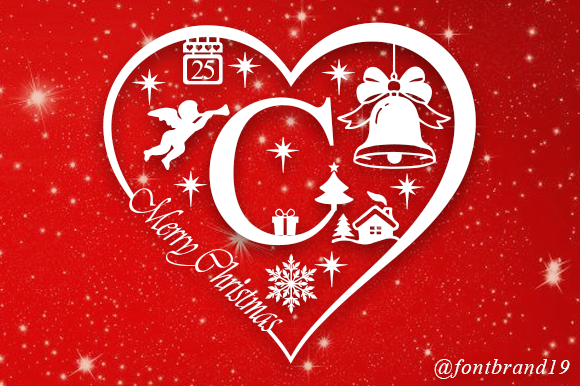
Love Christmas Monogram Font is the perfect choice for adding a touch of festive magic to your designs. This decorative font is meticulously crafted with intricate details that will captivate and delight your audience.
With its PUA encoding, accessing all the unique glyphs and swashes is a breeze. Let your creativity soar as you explore the endless possibilities this font offers.
Whether you're designing Facebook covers, holiday cards, or creating personalized gifts, Love Christmas Monogram Font will be your go-to choice. It adds a joyful and whimsical element to any project, making it perfect for spreading holiday cheer.
Each letter is carefully designed to evoke a sense of warmth and love, creating a truly magical experience for your audience. It's time to stand out from the crowd and leave a lasting impression with this enchanting font.
Impress your friends and family with stunningly beautiful designs that showcase your creativity and attention to detail. Love Christmas Monogram Font is the secret ingredient that will make your creations truly shine.
Not only does this font offer a visually appealing style, but it also comes with a wide range of applications. From greeting cards to party invitations, from social media graphics to home decor, this font will elevate your designs to new heights.